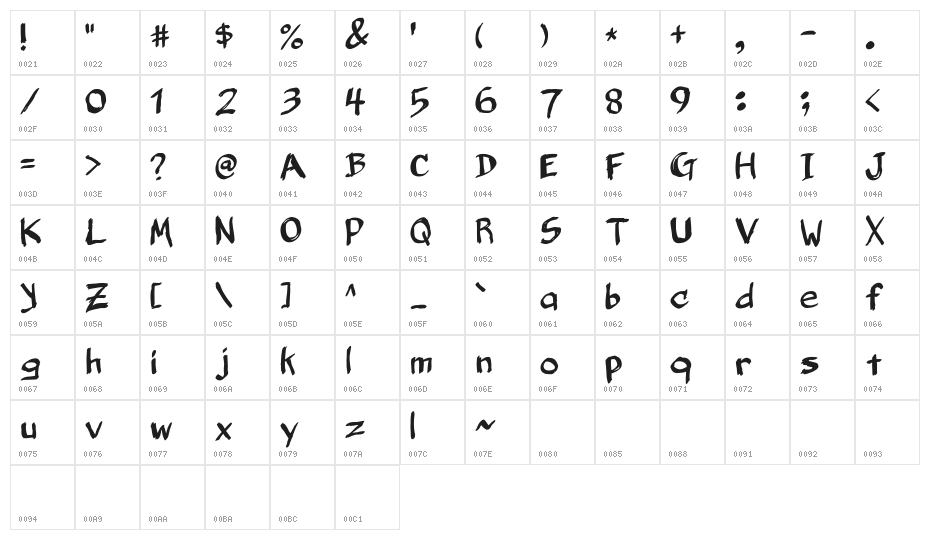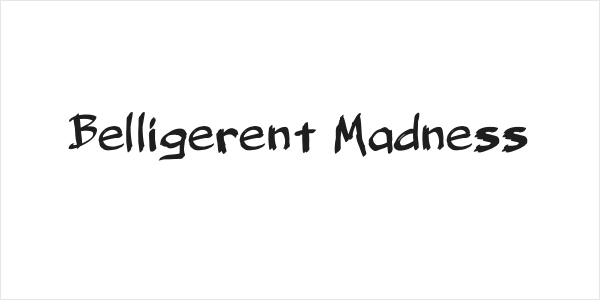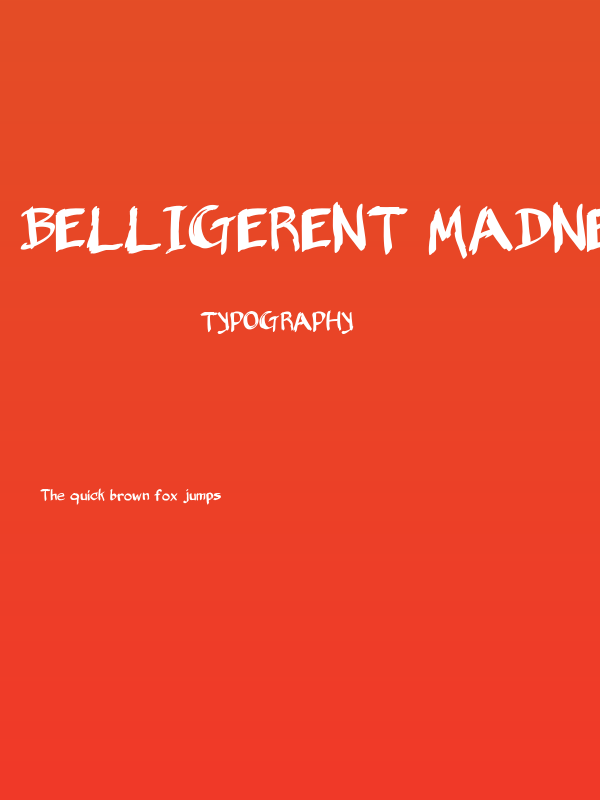
Belligerent Madness Font
Belligerent Madness Description
This font exhibits a bold and expressive style, characterized by its brush-like strokes and dynamic appearance. The letters have an irregular, hand-drawn quality, giving them a sense of movement and energy. The uppercase and lowercase letters maintain a consistent style, with varying stroke widths that add to the font's lively and somewhat chaotic feel. The numerals and special characters follow the same aesthetic, ensuring a cohesive look across all glyphs. This font's unique style makes it stand out, ideal for projects that require a touch of creativity and boldness.